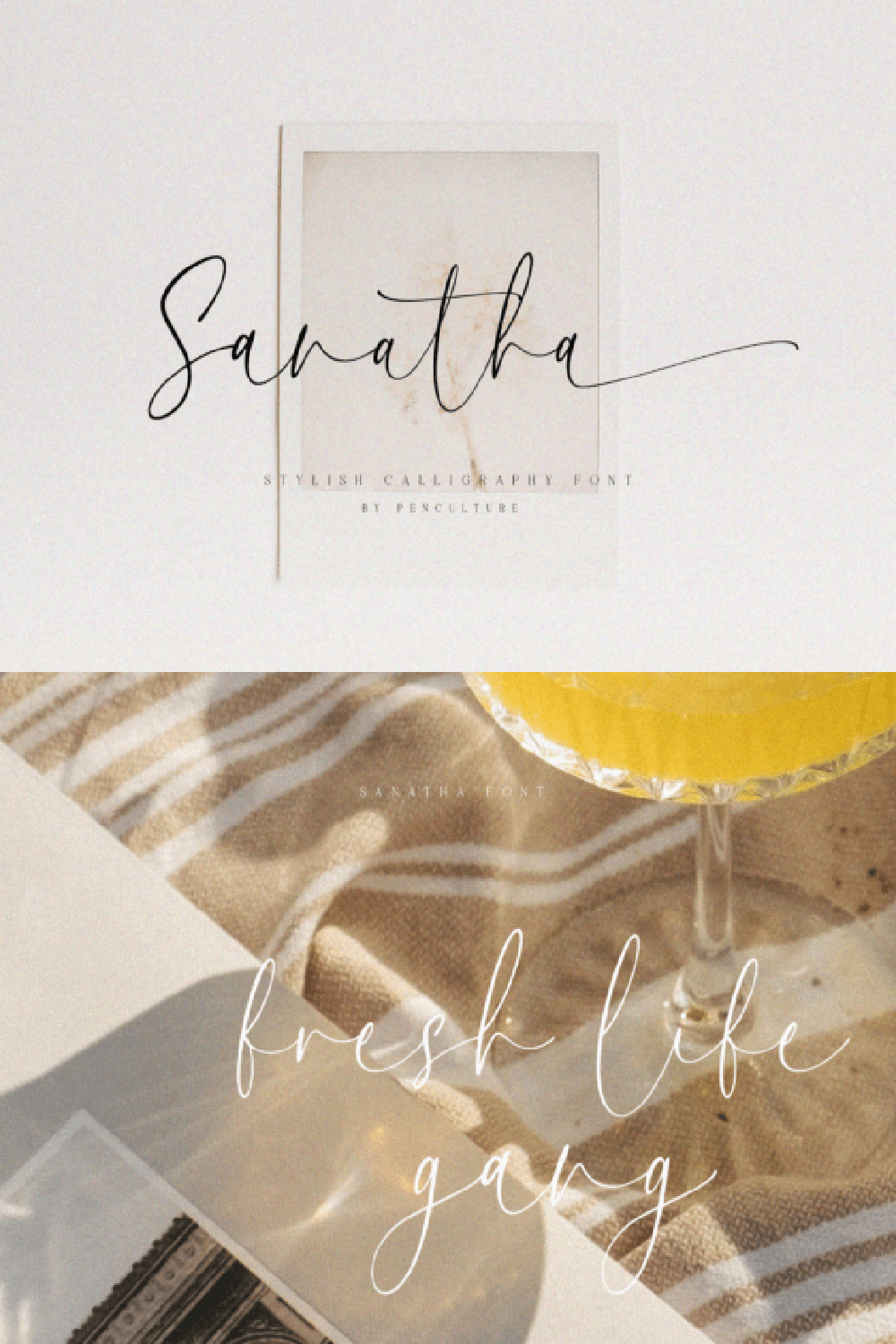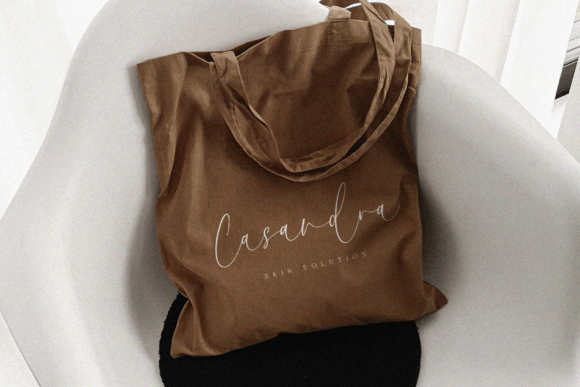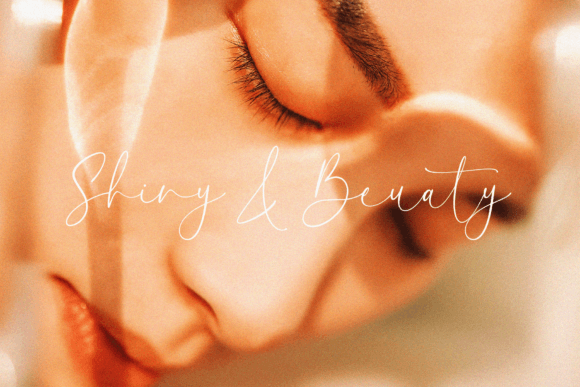
Sanatha Font: Elegant Calligraphy for Wedding & Branding Design
About the Sanatha Font
Step up your design game with Sanatha Font, a font that exudes confidence and style. Sanatha is a stylish calligraphy font with natural handwritten that perfect for any kind of design project like wedding invitation, branding, poster and others. This font come with lovely swashes and ton of ligature which make this font stylish and elegant.
Sanatha Font Usage Examples
Sanatha Font Example